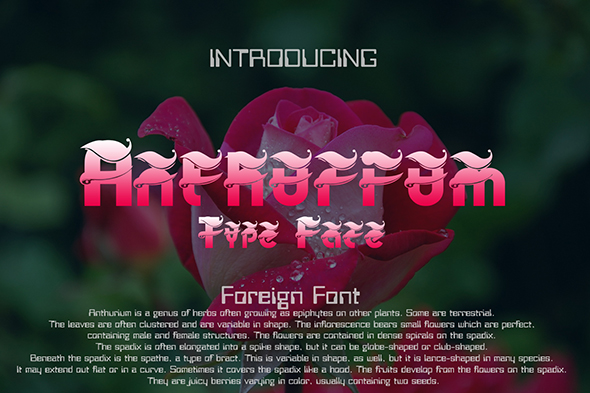
Anthurium Font
Venture into the realm of captivating typography with Anthurium Font, an exquisite decorative font family that breathes life into your creative expressions. Its meticulously crafted glyphs possess an organic flow, reminiscent of Anthurium flowers, creating a visual spectacle that's both elegant and enchanting. Designed by the talented Gblack Id, Anthurium beckons you to elevate your designs to new heights of artistry.
With its flowing curves and striking letterforms, Anthurium isn't just a font; it's an artistic journey. Experience the joy of expressing your individuality through its myriad stylistic variations, ranging from Regular to Slanted, ensuring a perfect fit for any project. Effortlessly capture the essence of romance, nature, and sophistication with this font that seems plucked from a storybook.
Let your words bloom with Anthurium's captivating personality. Its delicate strokes and distinctive characters lend a touch of whimsy and charm to your projects. Whether crafting logos, social media graphics, or wedding invitations, Anthurium adds a layer of sophistication that sets your work apart. Embrace the allure of timeless aesthetics and watch your designs blossom into masterpieces.
Unlock a world of creative possibilities with Anthurium's versatility. Its inherent grace complements an array of design styles, from the classic and traditional to the bold and contemporary. Embark on an adventure of visual storytelling, where your imagination knows no bounds. Create eye-catching headlines that command attention, weave compelling narratives with your written words, or design monograms that exude elegance.
Experience the allure of Anthurium, where beauty meets functionality. Its crisp edges and clean lines translate seamlessly across digital and print media, ensuring your projects retain their charm in any setting. Say goodbye to pixelated letters and embrace the clarity and precision that make every detail shine. Whether gracing a website, adorning a poster, or stamped on a business card, Anthurium guarantees a lasting impression.